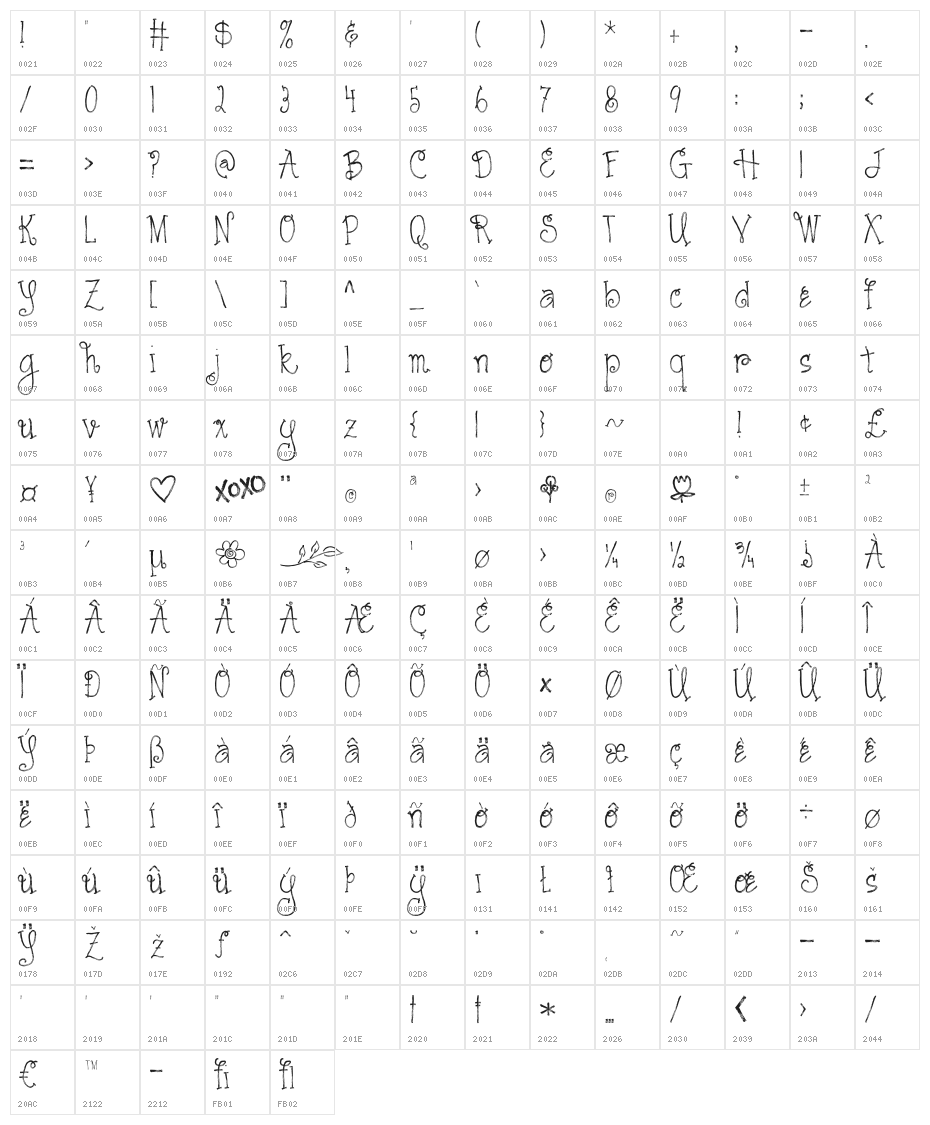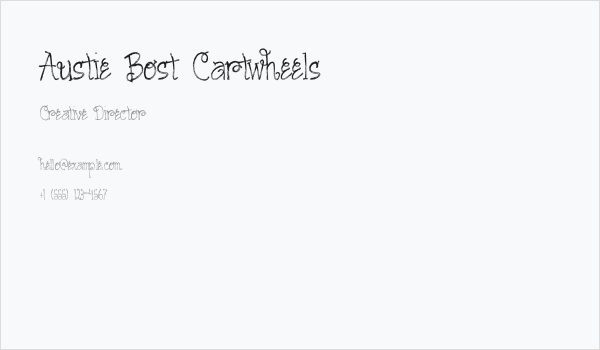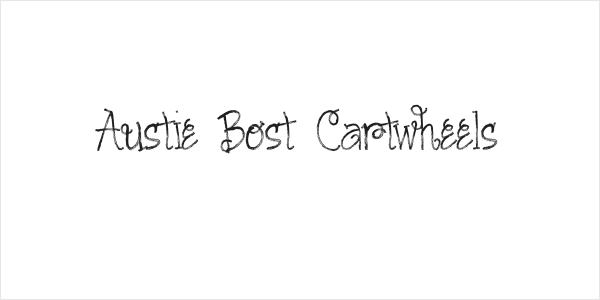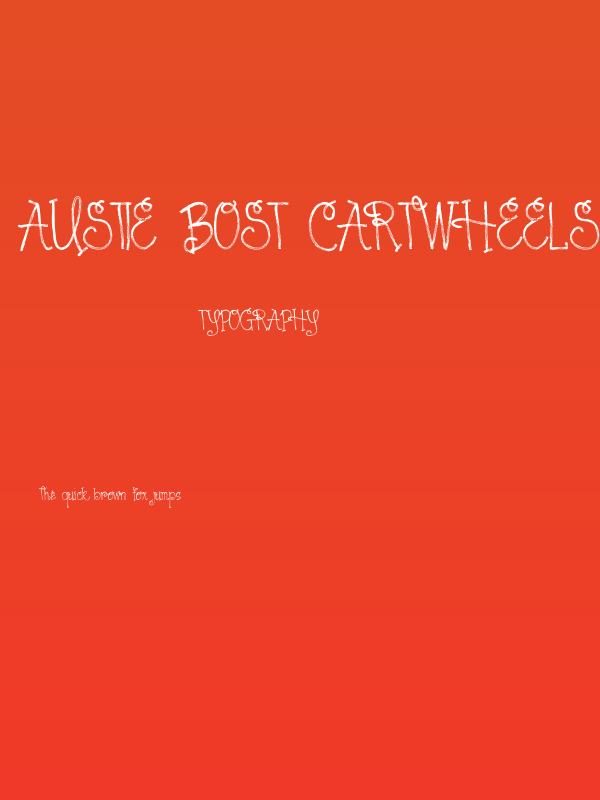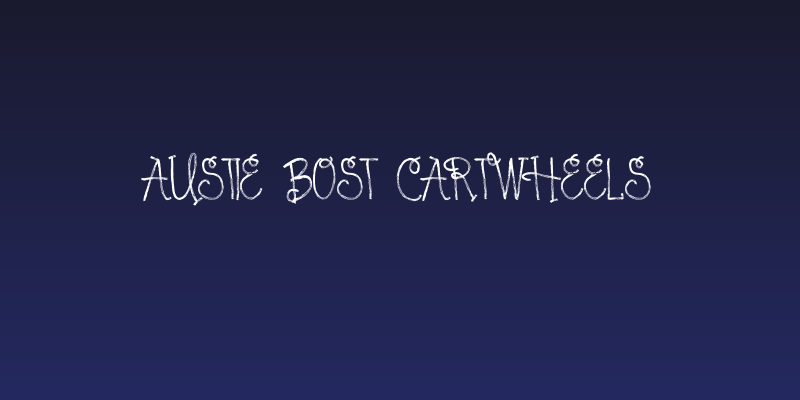
Austie Bost Cartwheels Font
Austie Bost Cartwheels Description
This font features a whimsical and playful design, characterized by its hand-drawn, sketch-like appearance. The letters are adorned with unique curls and loops, giving it a lively and energetic feel. The strokes are uneven, adding to its handcrafted charm, and the texture resembles a chalk or crayon effect. This font is highly decorative, with each character exhibiting a distinct personality. The uppercase and lowercase letters maintain a consistent style, while the numerals and special characters integrate seamlessly with the overall design. Its artistic flair makes it suitable for creative and informal applications.
| Overall Style | Playful, Artistic |
| Proposed Projects | Ideal for children's book covers, playful invitations, greeting cards, and creative branding projects. |